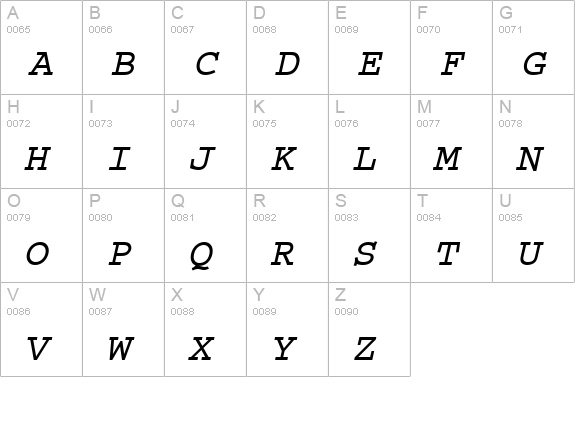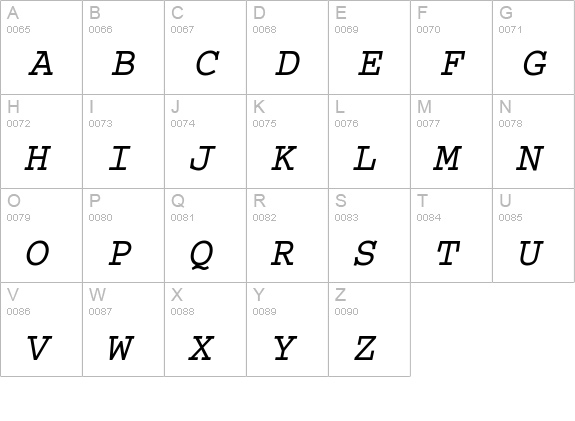
CourierMCY Bold Oblique Font Details
CourierMCY Bold Oblique is a strong, high-contrast, italic variant in the CourierMCY typeface family \xE2\x80\x94 well suited to headlines, attention-grabbing titles, and strong calls-to-action.
CourierMCY Bold Oblique is a dynamic and bold font style that exudes confidence and professionalism. With its slanted and italicized design, this font adds a touch of modernity and flair to any project. Perfect for conveying a sense of urgency and importance, CourierMCY Bold Oblique stands out as a versatile and eye-catching typeface. What's even better is that CourierMCY Bold Oblique is available for free download at FontsMarket.com. This means you can easily access and use this unique font to enhance your designs, without having to worry about any additional costs. Don't miss out on the opportunity to elevate your projects with the distinctive style of CourierMCY Bold Oblique.